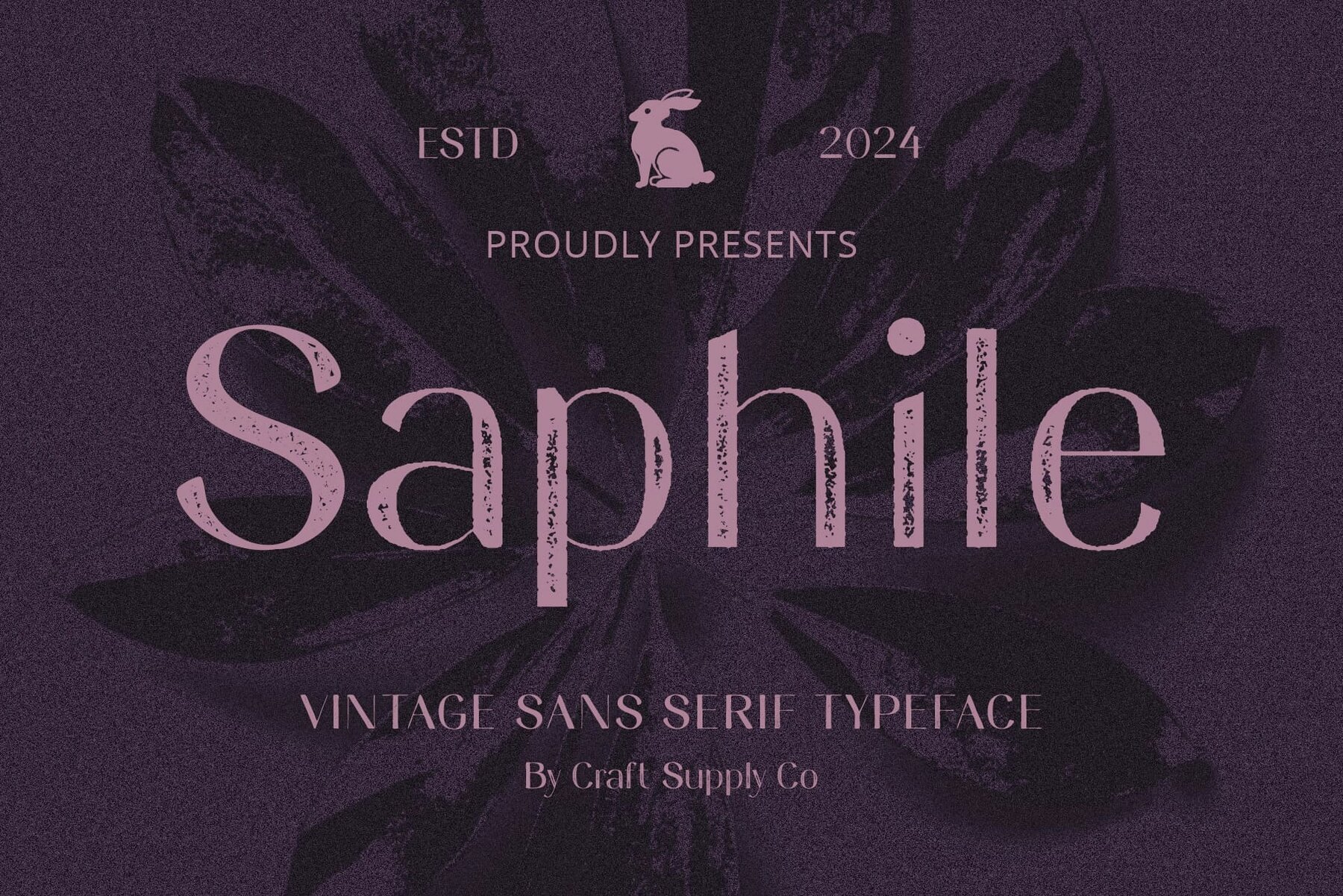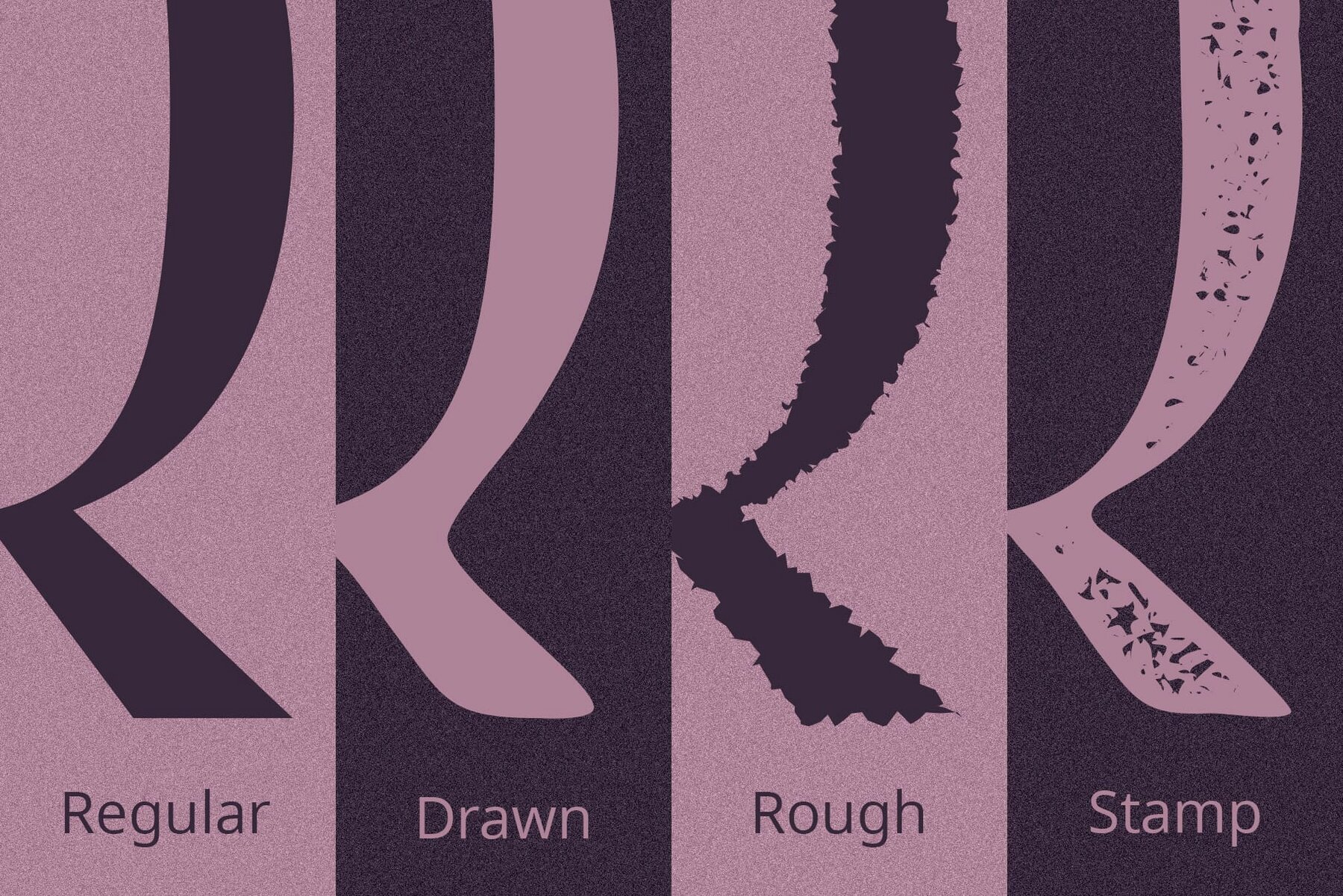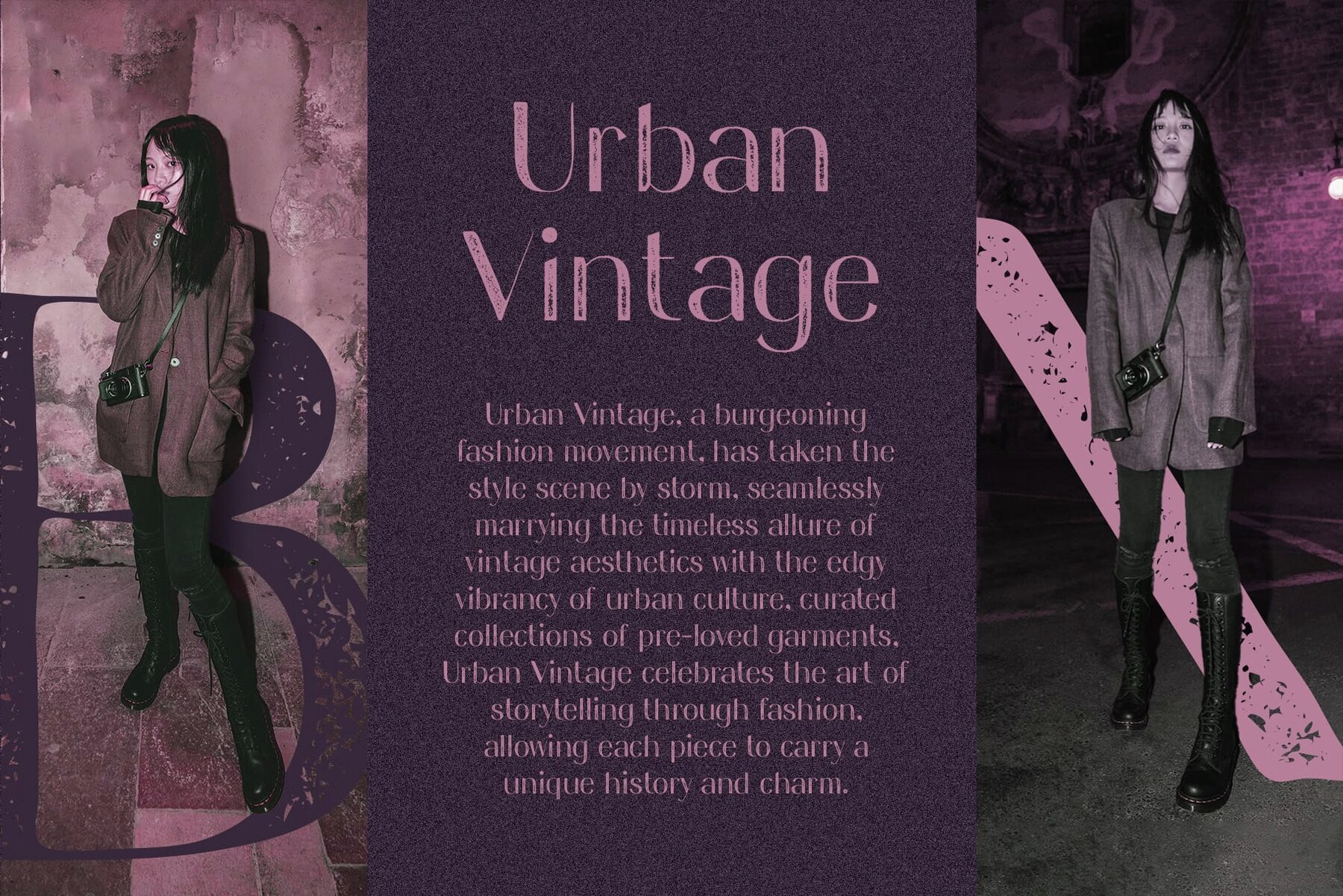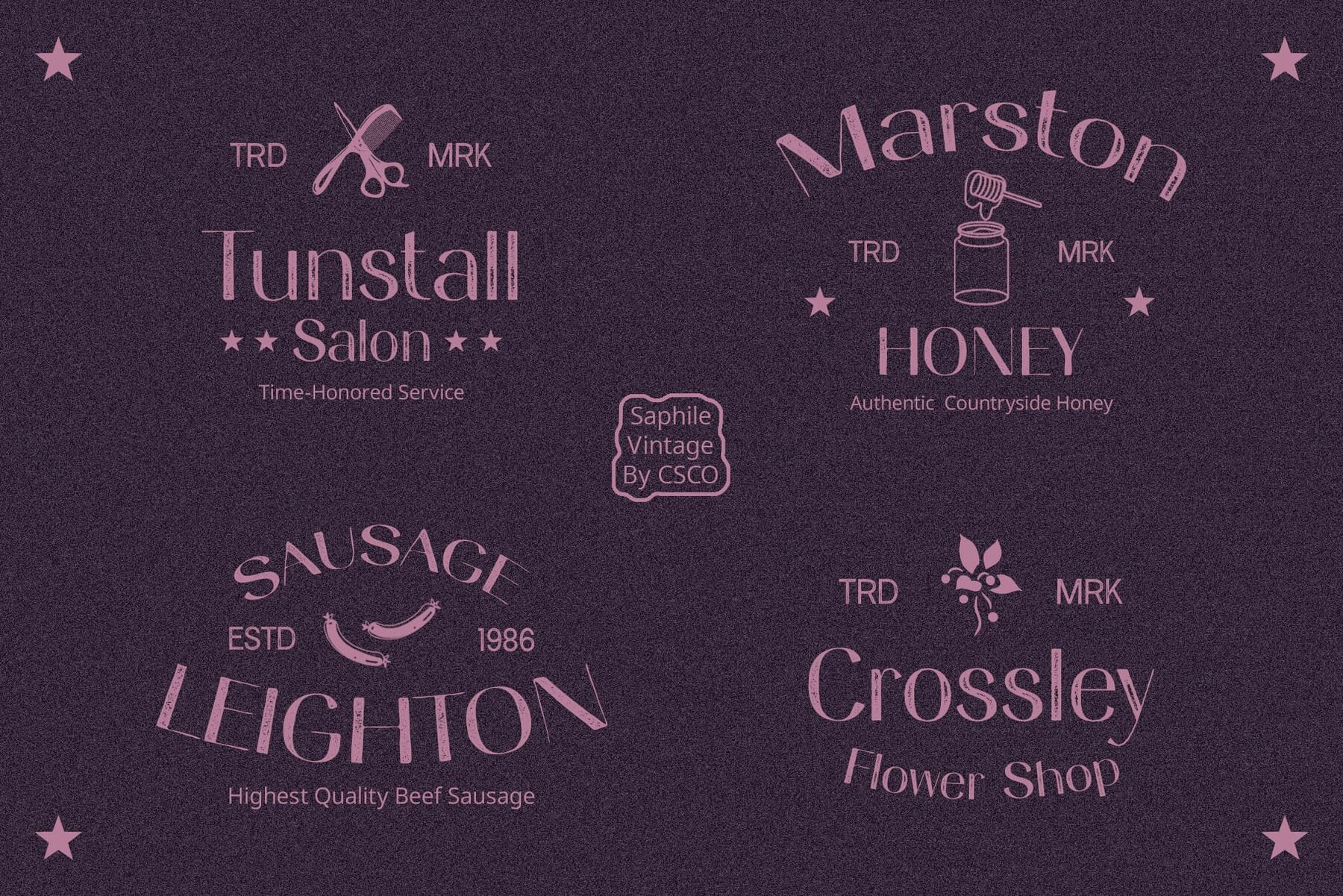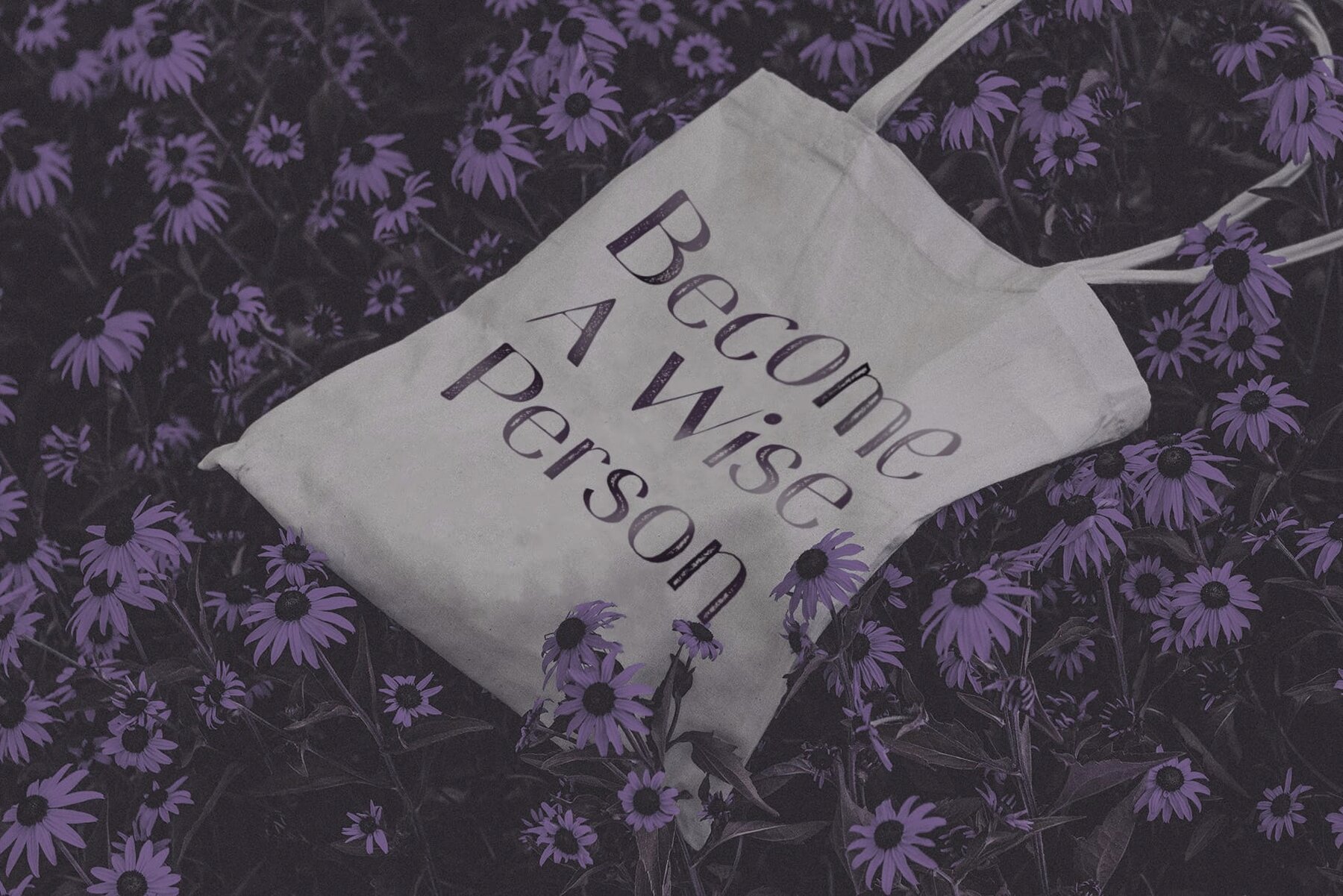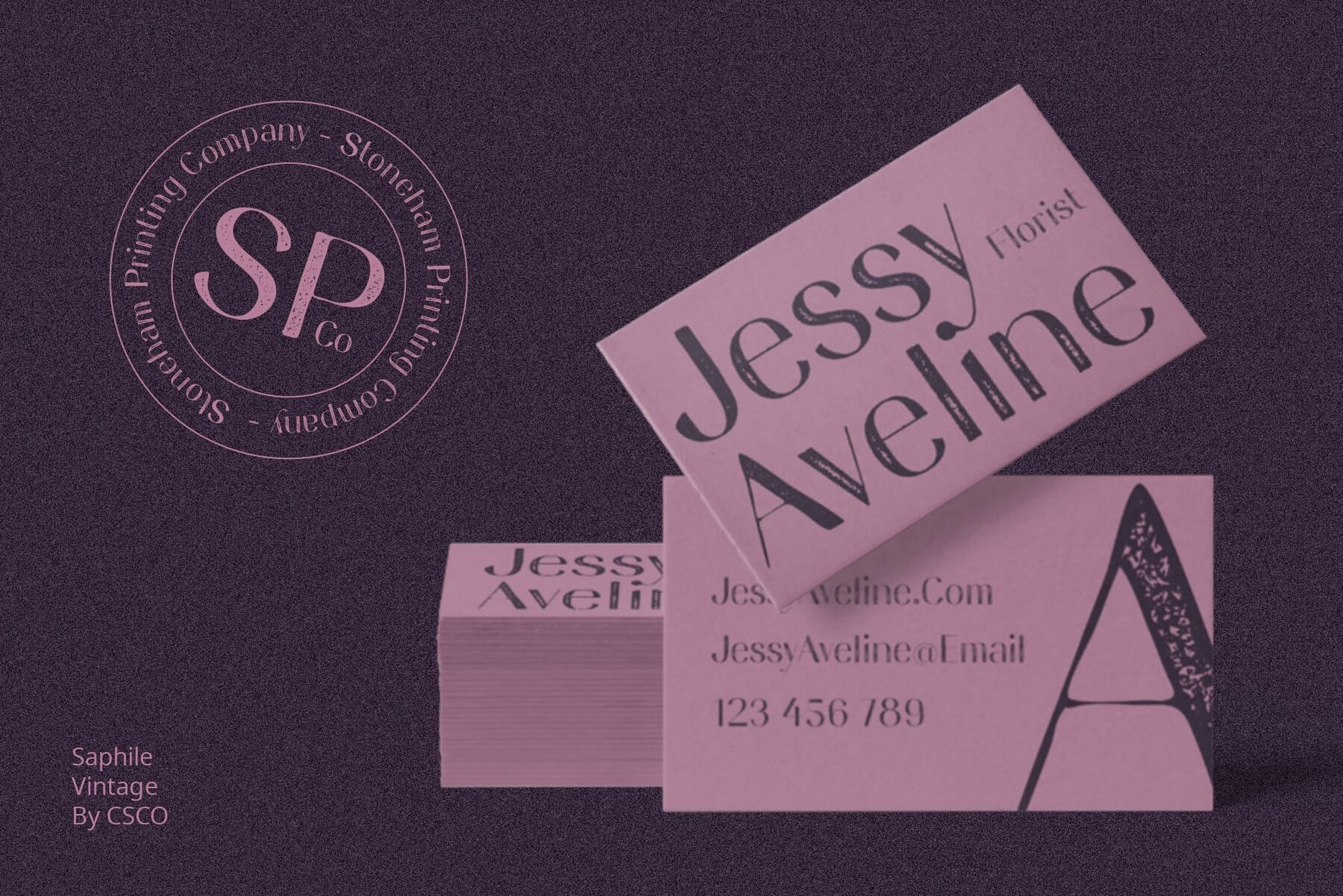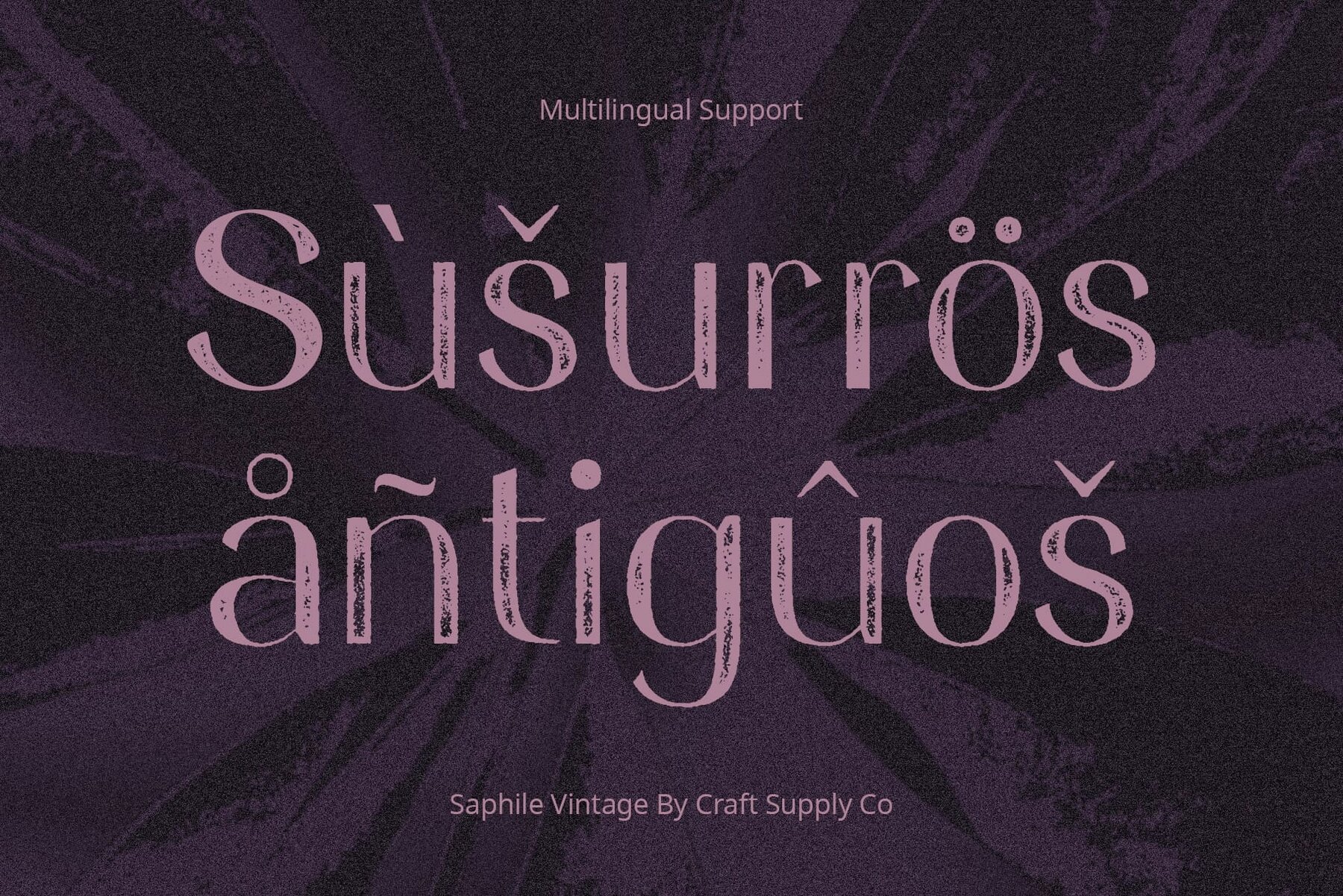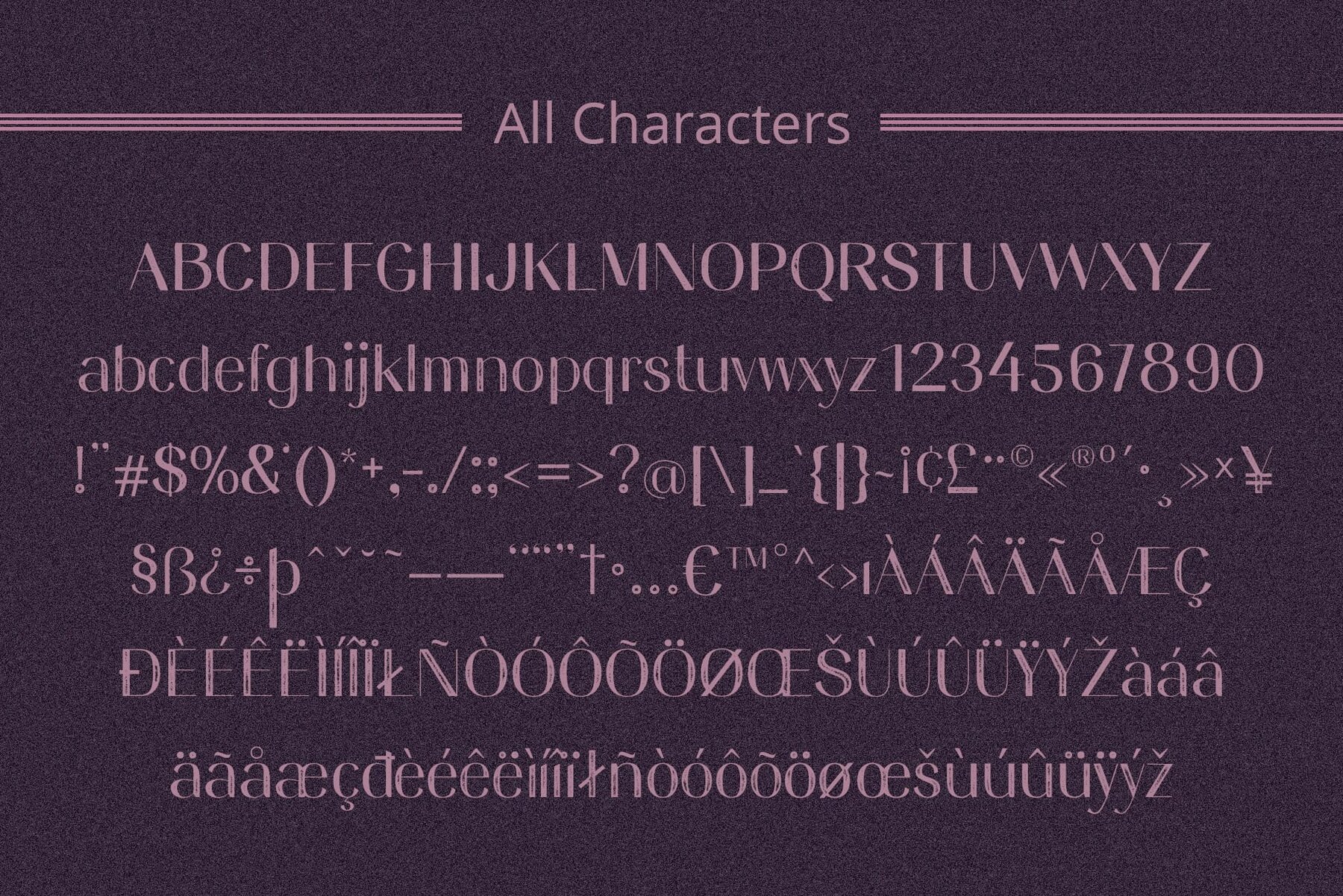
Saphile Vintage Font
Saphile Vintage is a sans serif font that expertly combines bold contrasts with captivating retro aesthetics. Its design is both clean and striking, ensuring it captures attention effortlessly. No specialized software is needed to use this typeface. For any inquiries or assistance, please don't hesitate to get in touch. We appreciate your support in making your creative projects shine!Saphile Vintage: A Bold Display of Retro Appeal